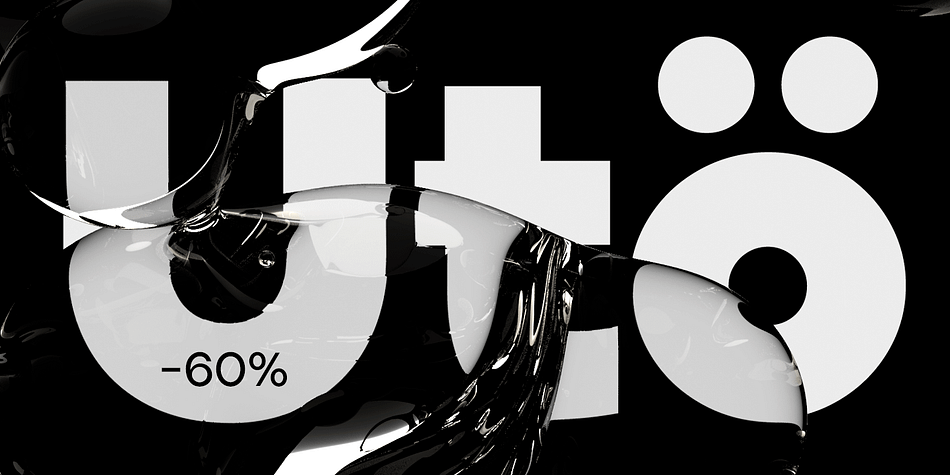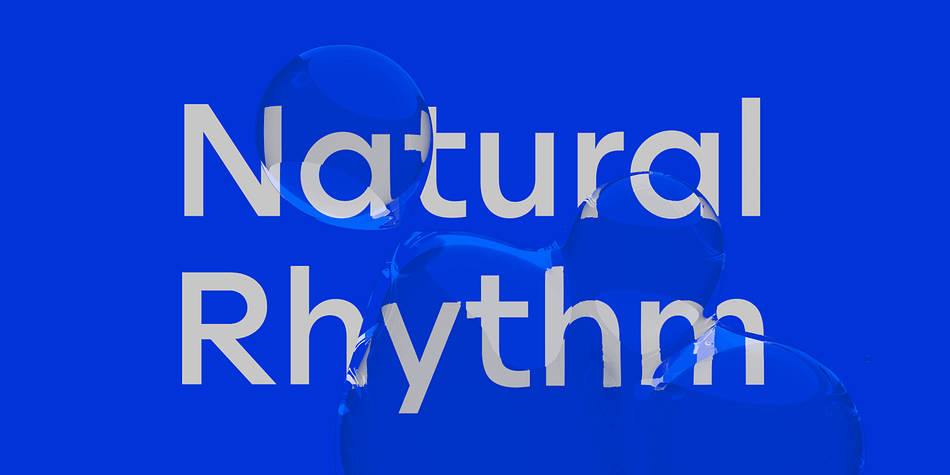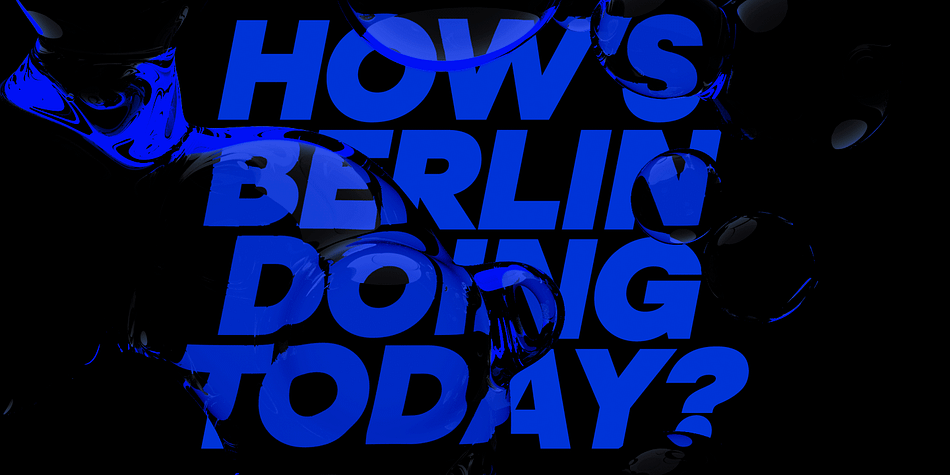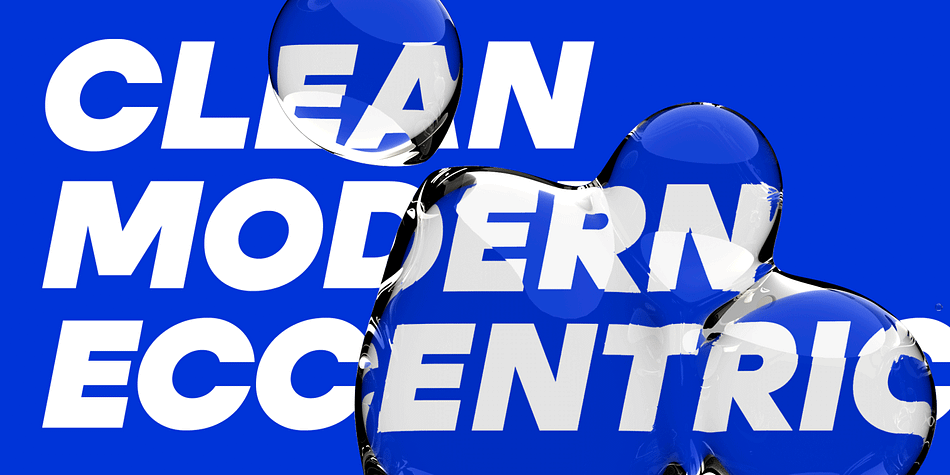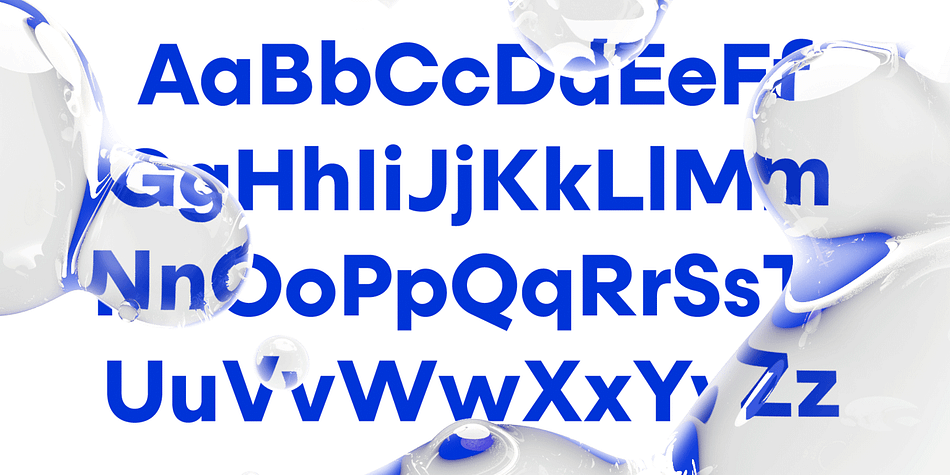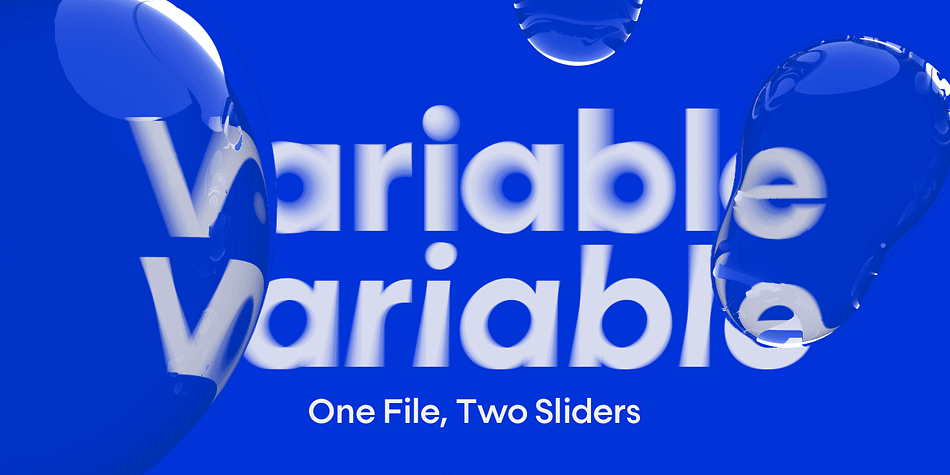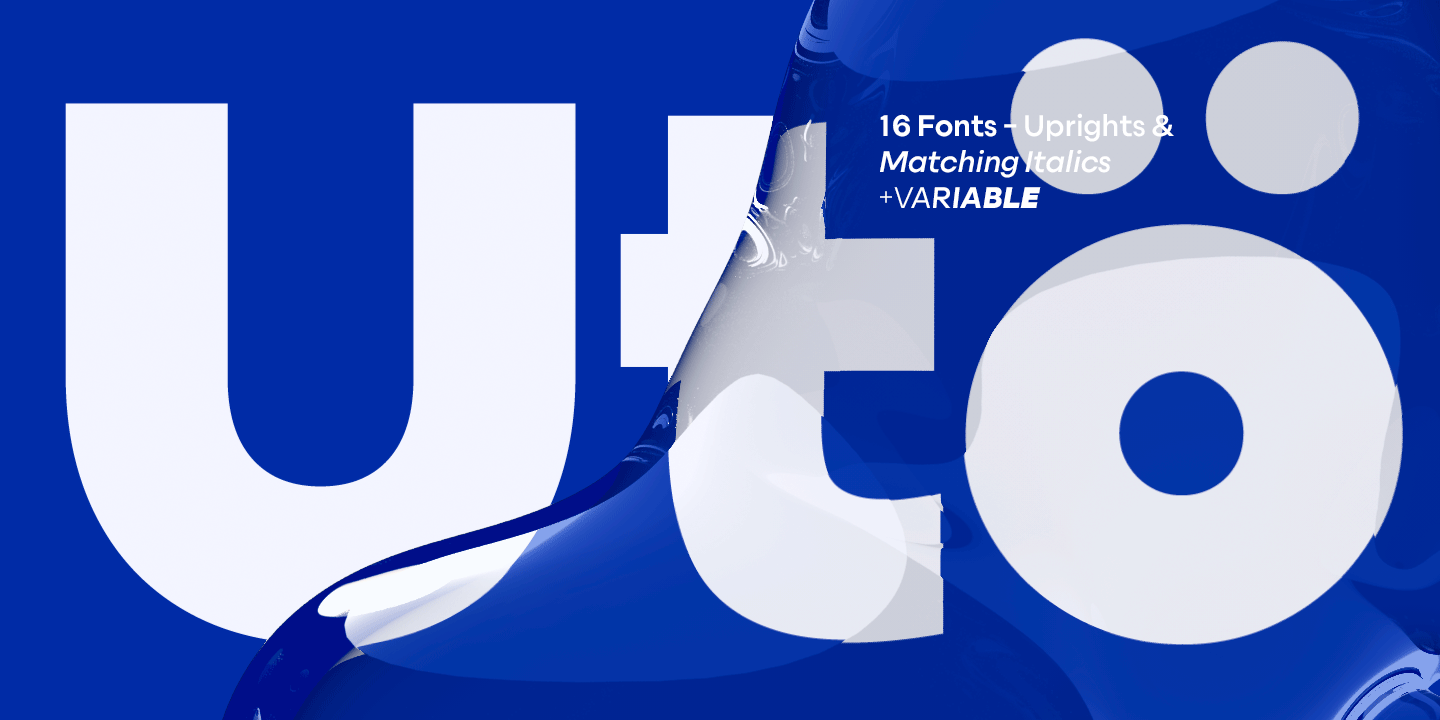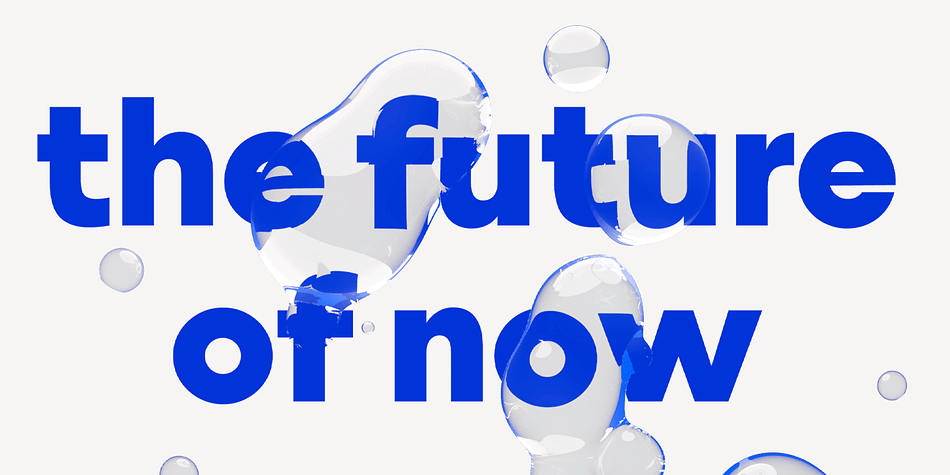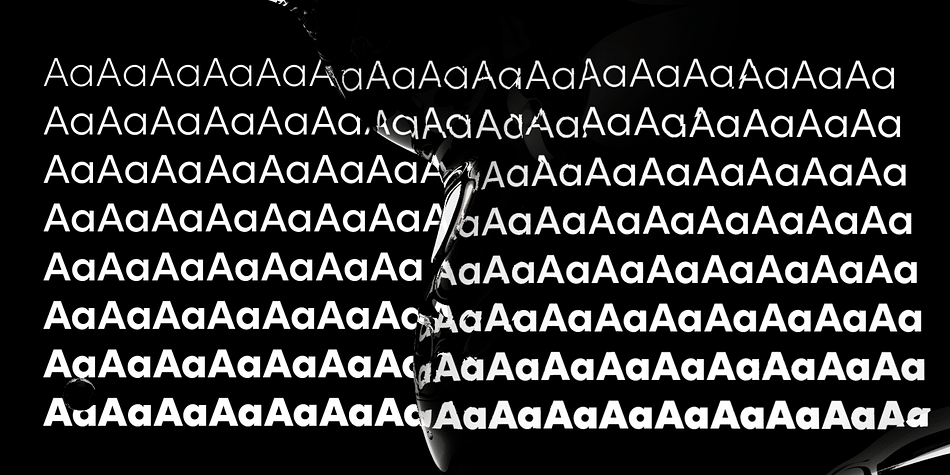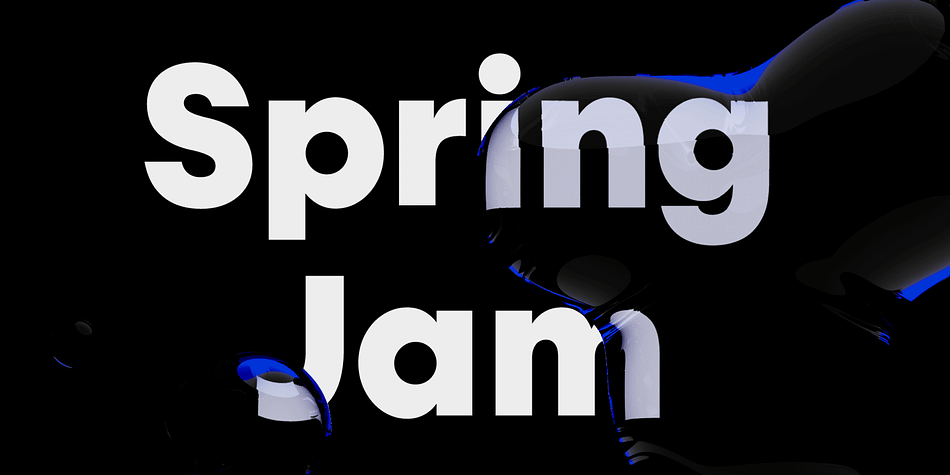
Uto
Designed by Teo Tuominen, Erik Bertell and Emil Bertell, Uto is a sans serif font family. This typeface has seventeen styles and was published by Fenotype.
The Uto font family is named after the island of Utö, the southernmost part of Finland – an ascetic place that’s defined by bare simplicity. The same is true for the font, that’s constructed of the simplest of forms. At the outer archipelago, life is shaped by the ever-changing nature and its seasons. Uto thus comes as a variable font, making it highly adaptable for different requirements. For more conventional use, a compact range of single fonts in different weights is provided, equipped with multiple Open Type numeral styles.